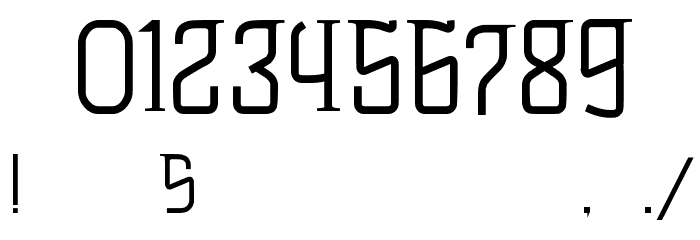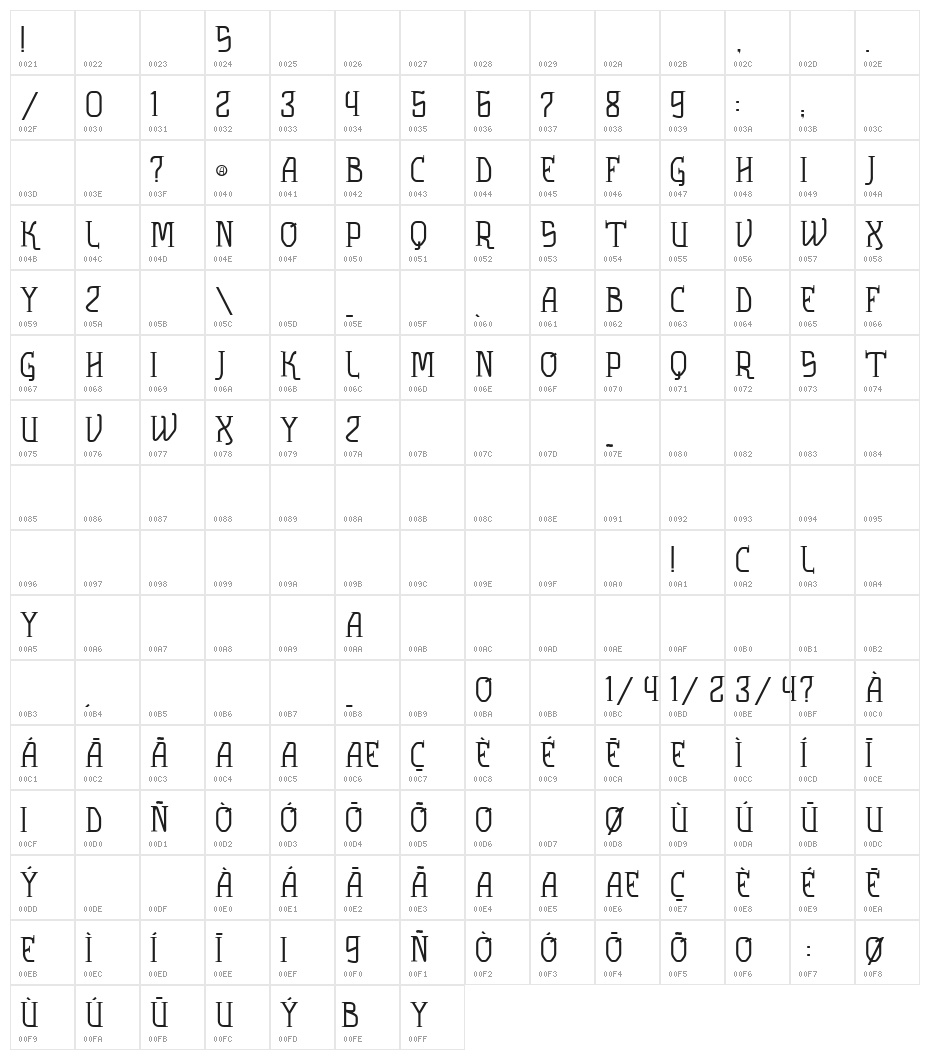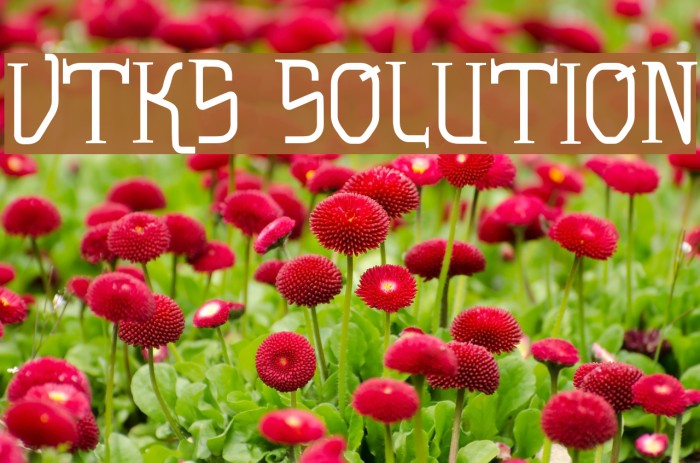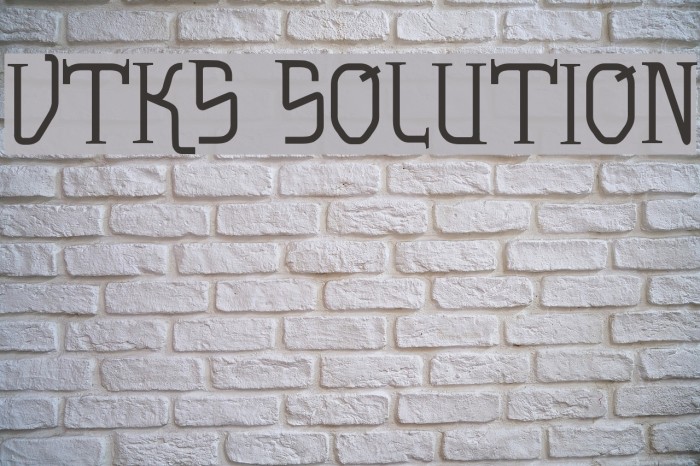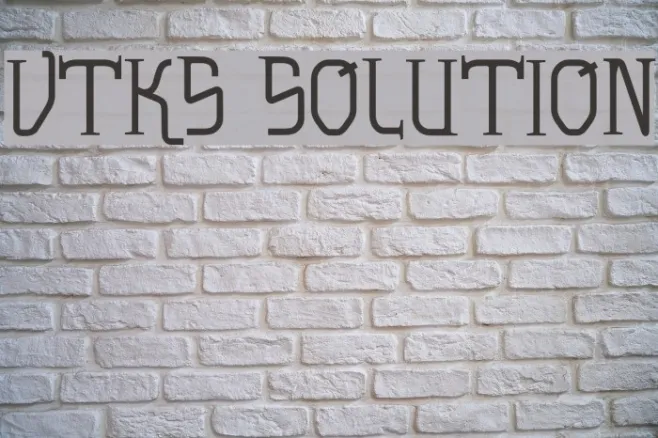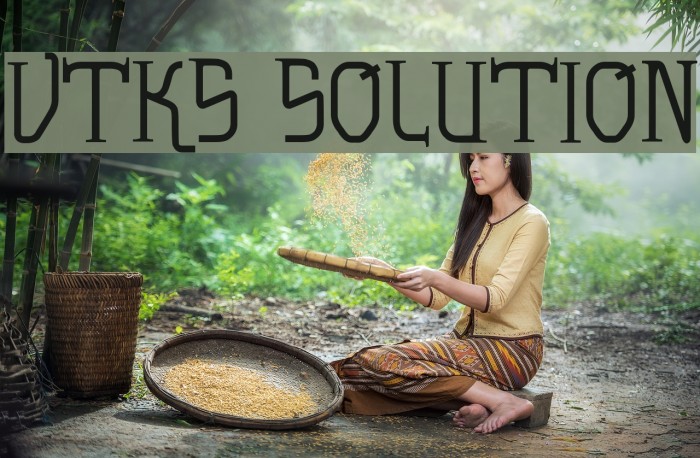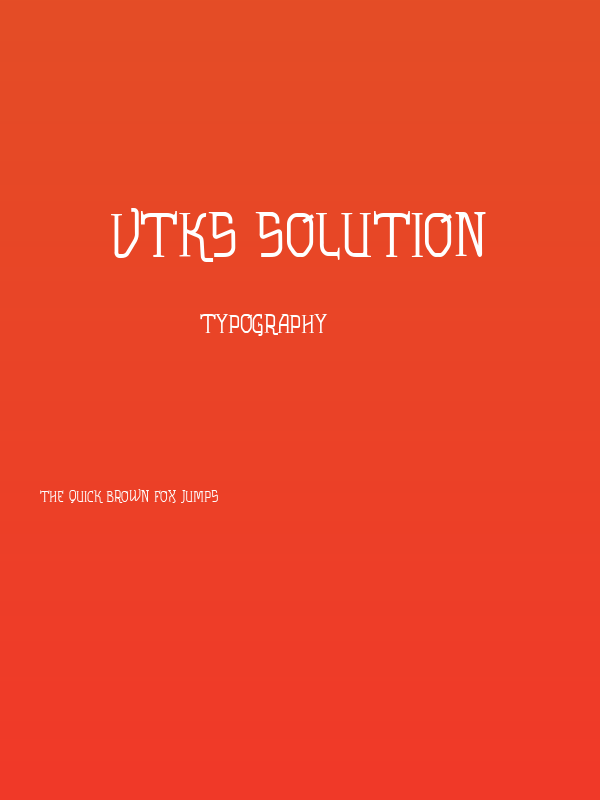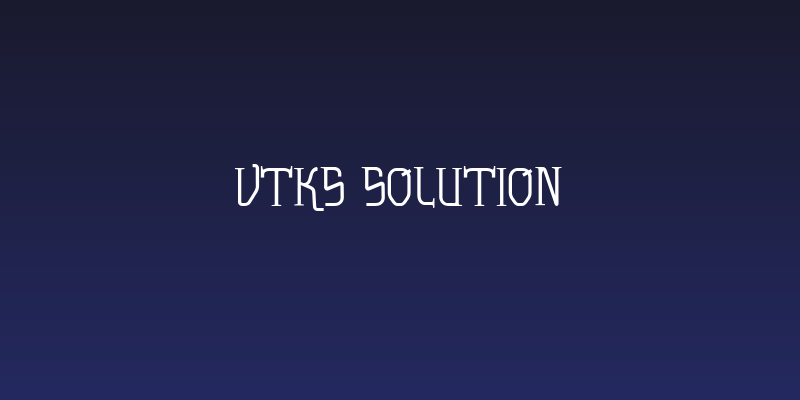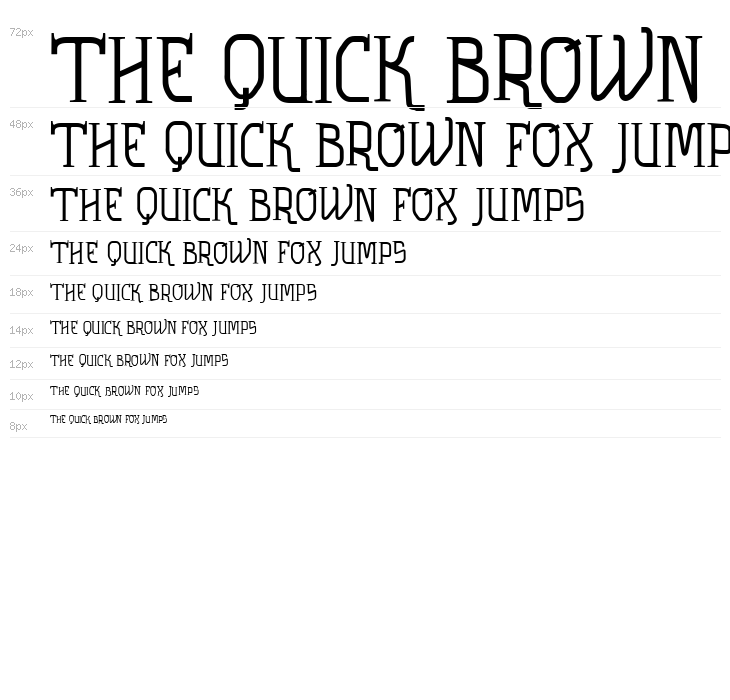
vtks solution Font
vtks solution Description
This font features a unique and bold design with a modern twist. The characters are constructed with sharp, angular lines and distinct geometric shapes, giving it a futuristic and edgy appearance. The uppercase letters are particularly striking, with their elongated forms and pointed serifs that add a touch of elegance. The lowercase letters maintain the same angular style, ensuring consistency throughout the typeface. Numbers are equally bold and dynamic, making them stand out in any design. Special characters are creatively integrated, maintaining the overall aesthetic of the font. This typeface is perfect for projects that require a strong visual impact and a contemporary feel.